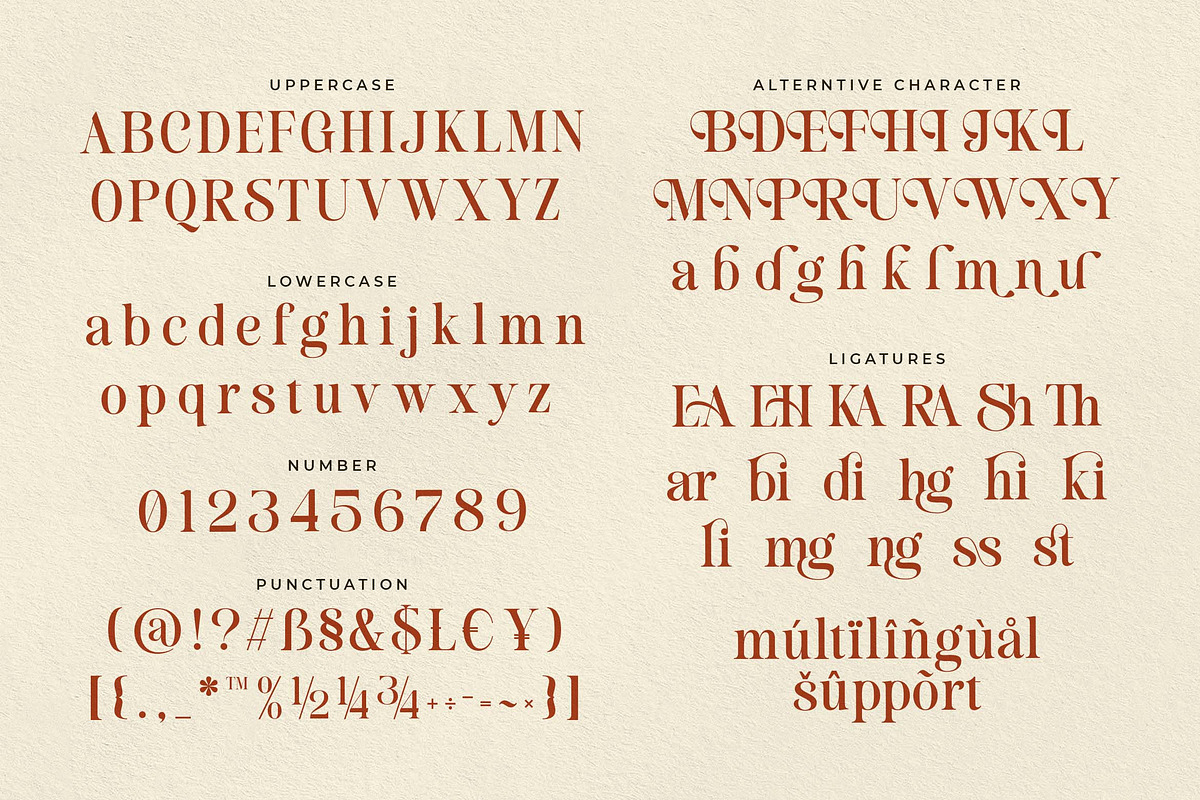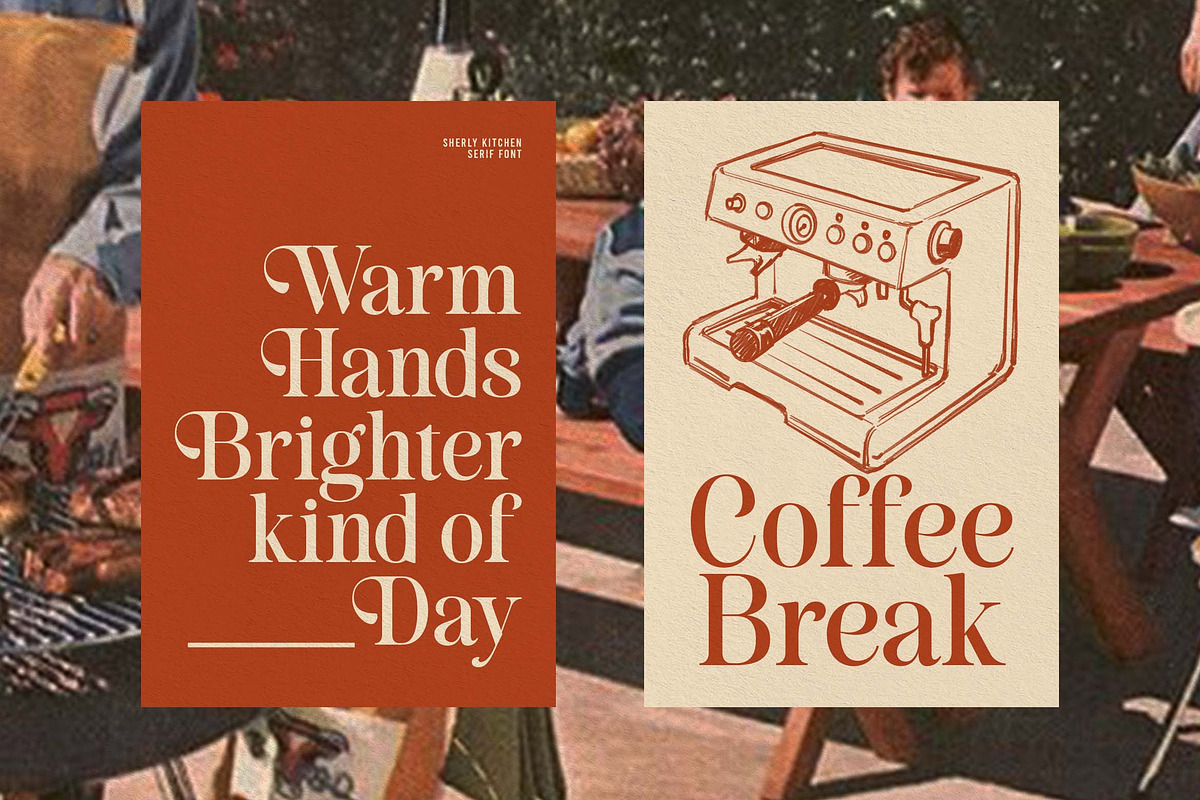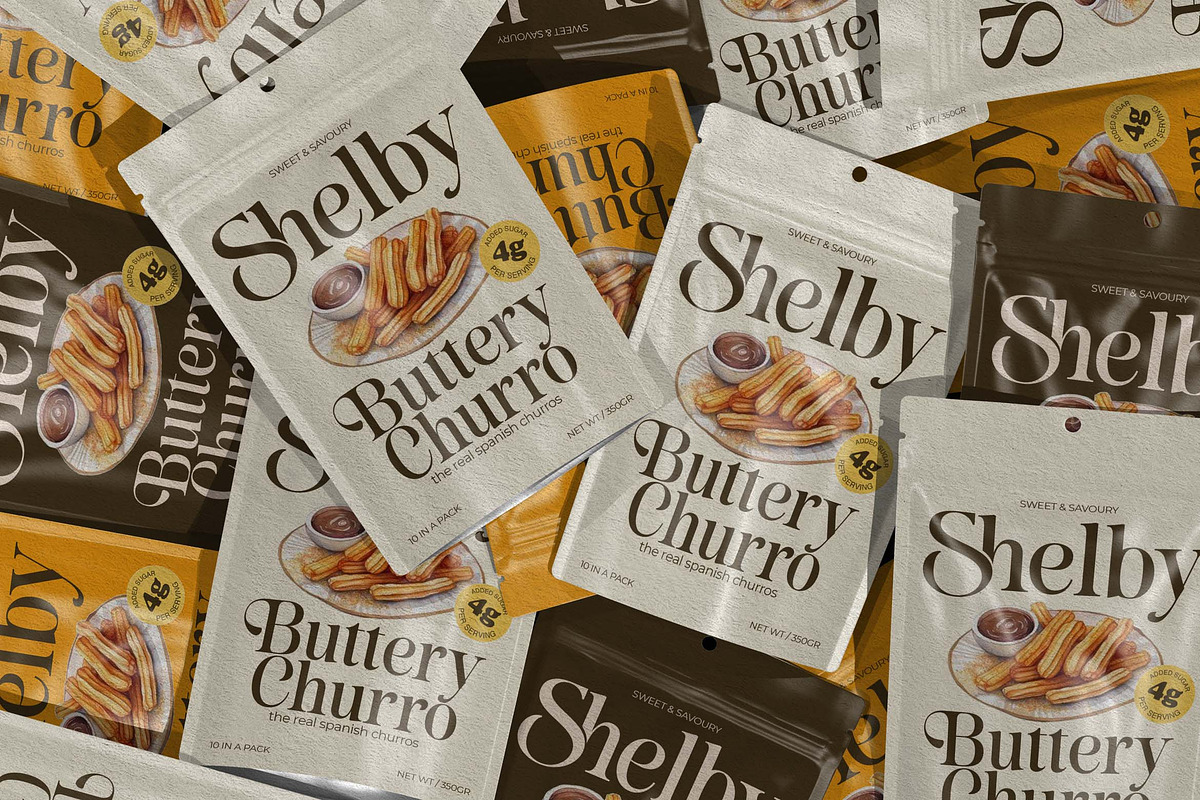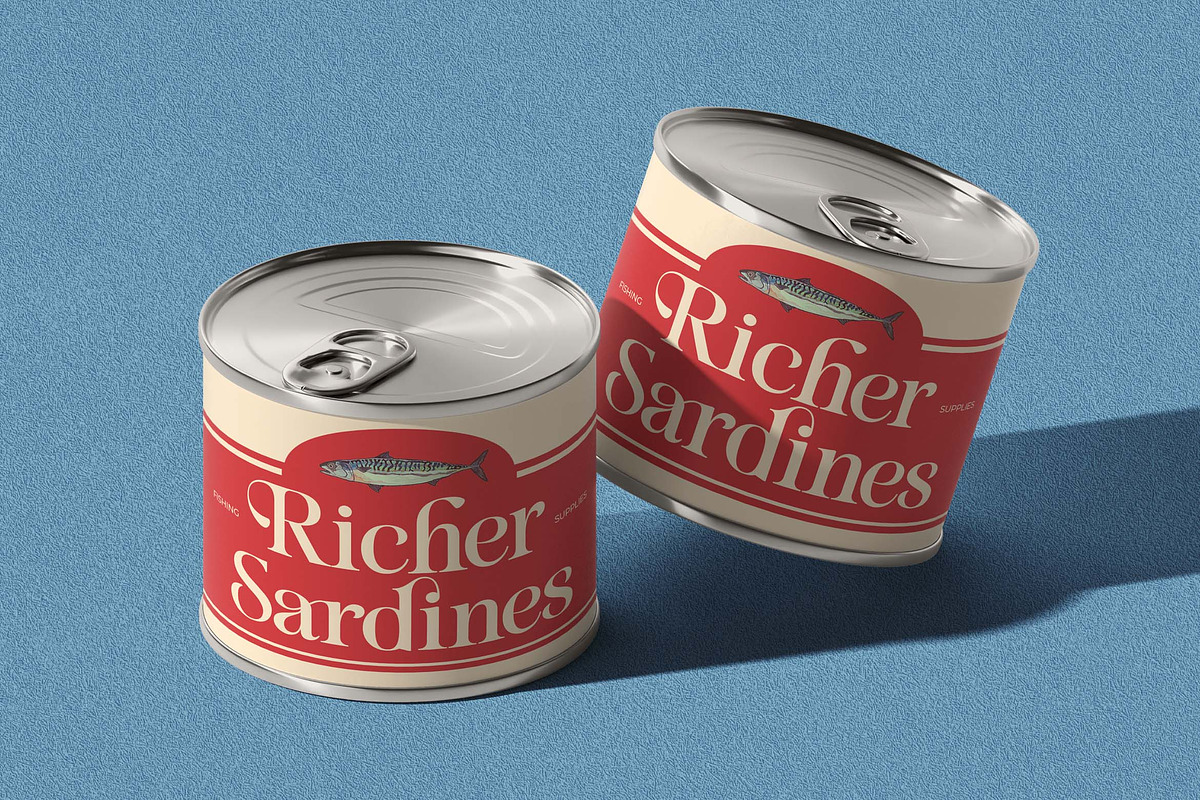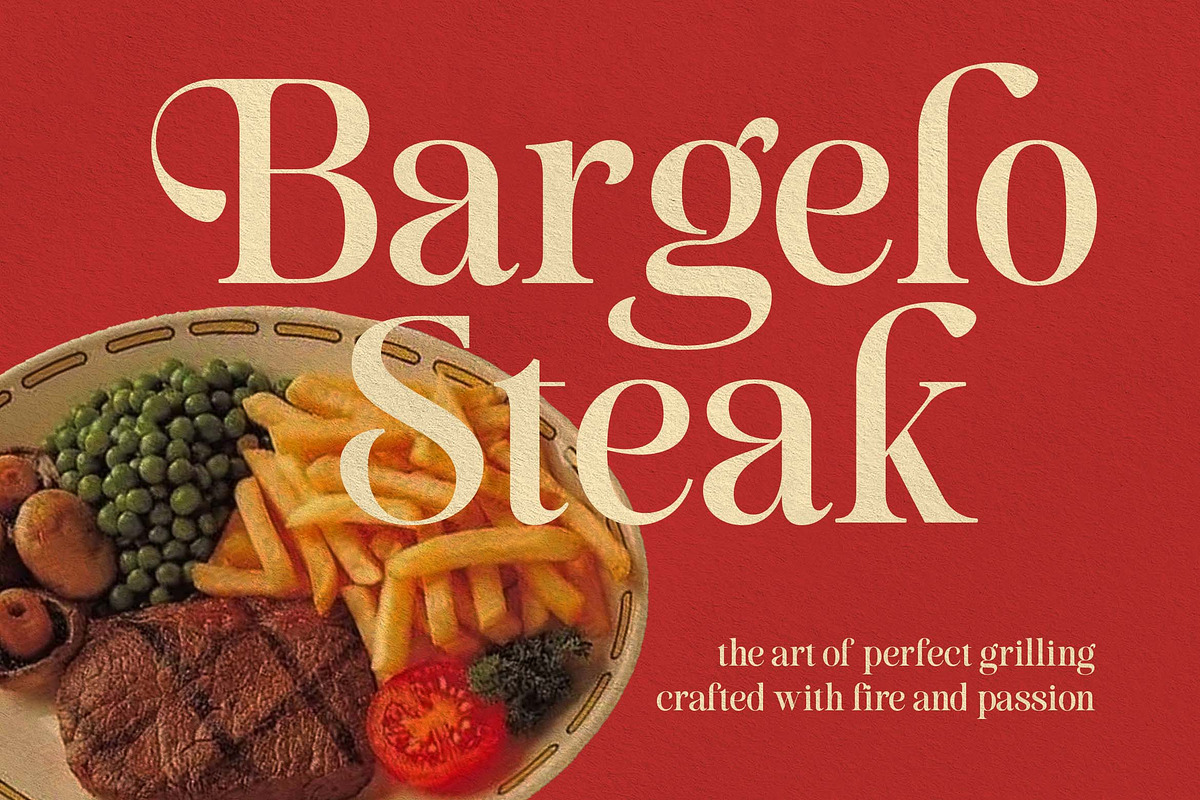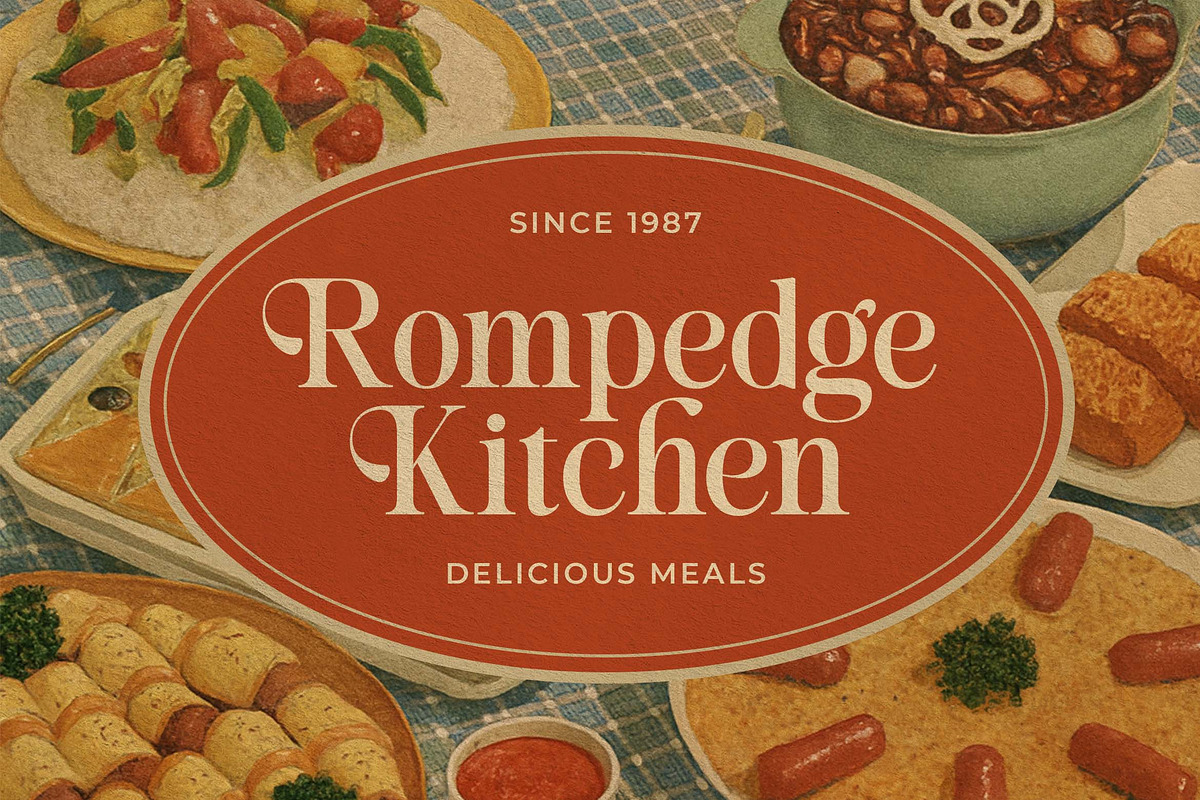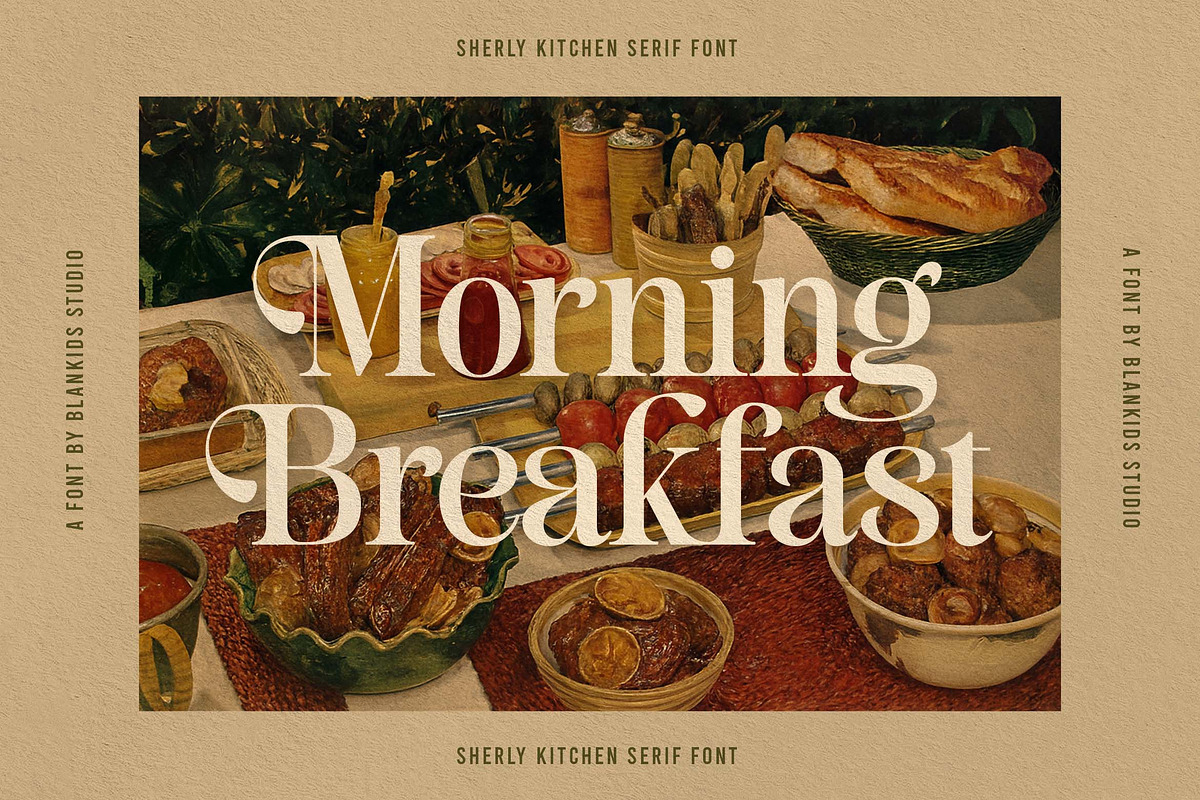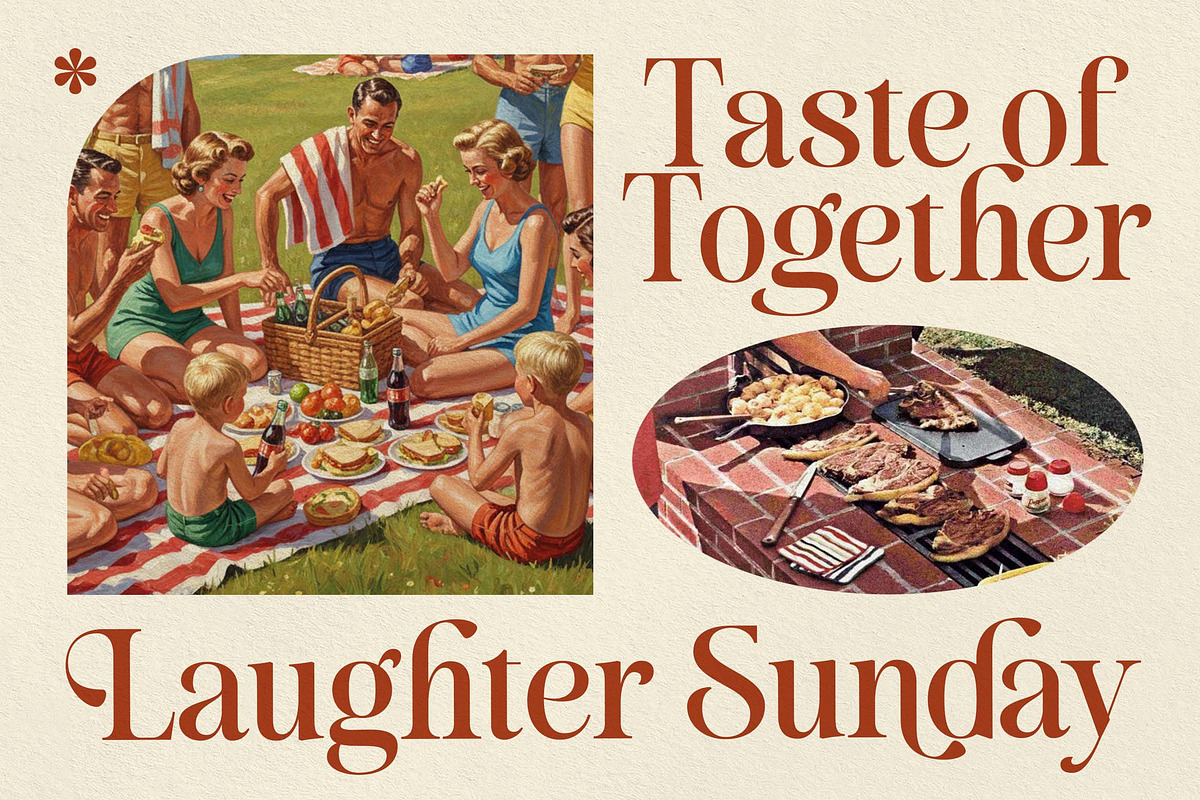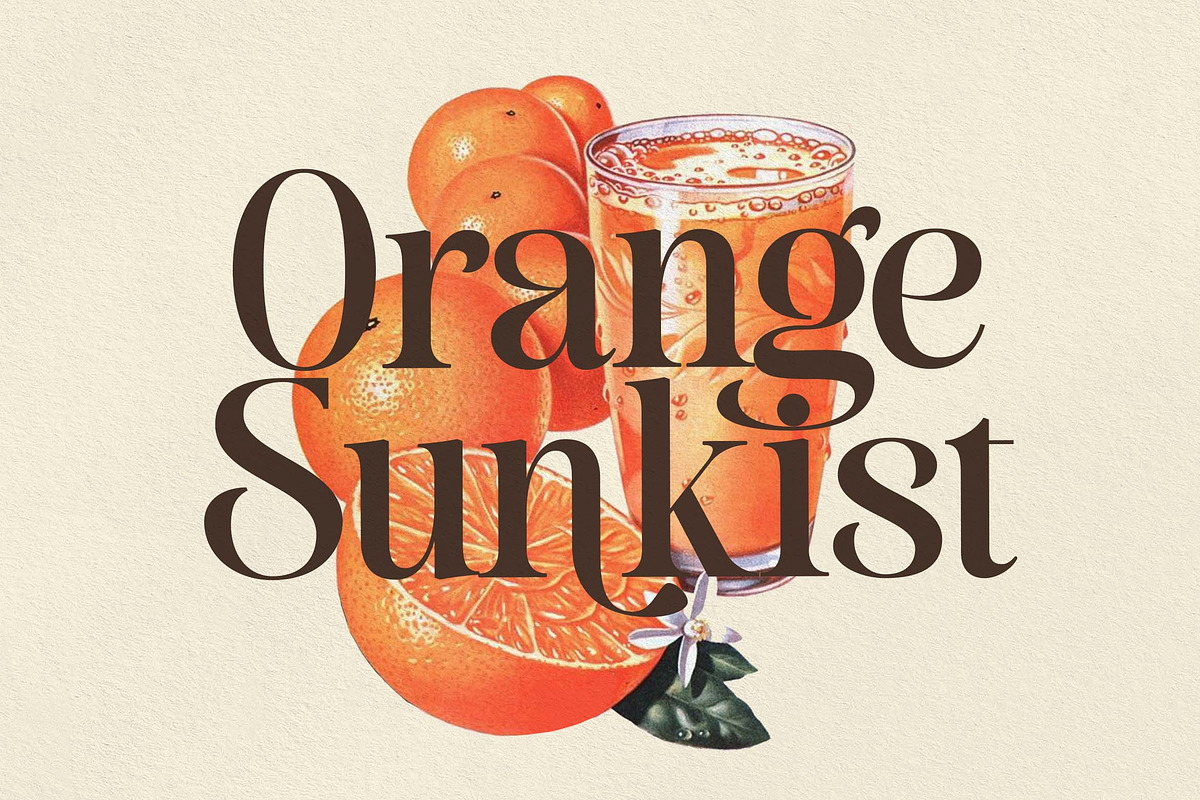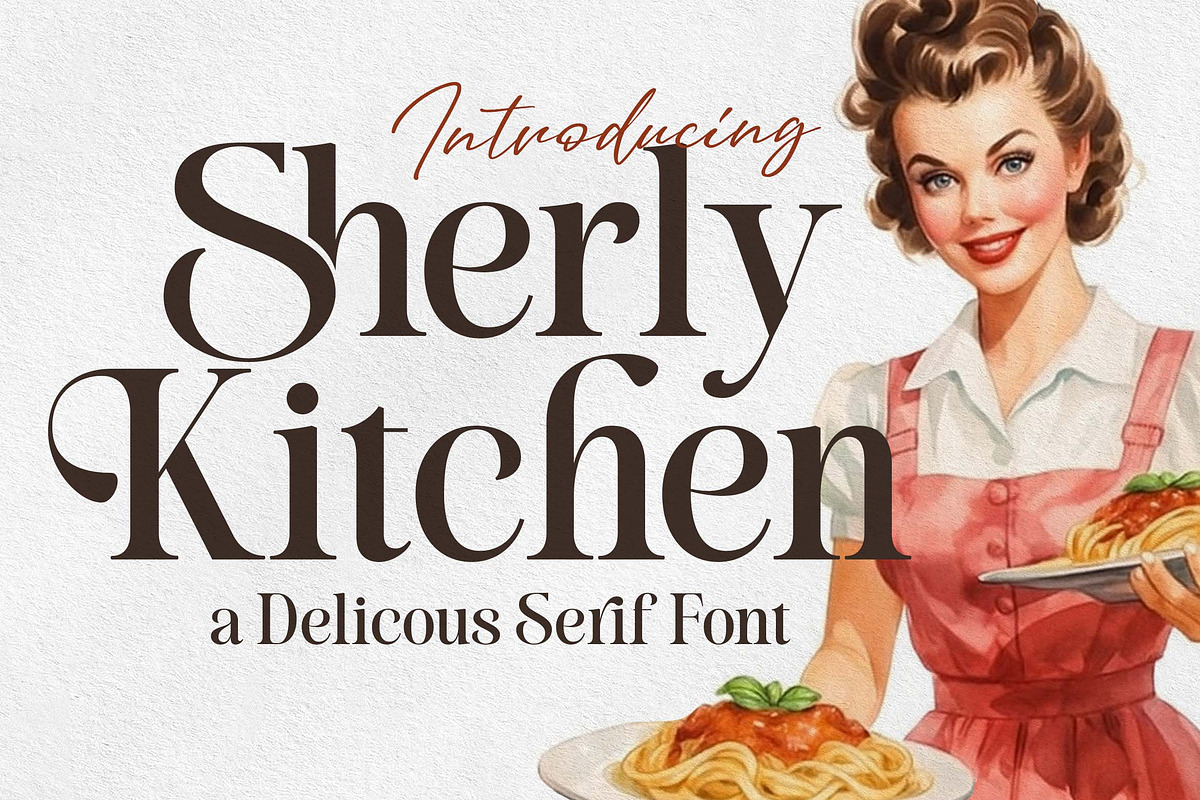
Sherly Kitchen a Delicious Serif
Sherly Kitchen – A Delicious Serif Font
Introducing Sherly Kitchen, a charming serif font that blends vintage warmth with modern elegance. Inspired by retro food packaging and classic diner menus, this typeface serves up a delightful taste of nostalgia perfect for brands that want to feel both timeless and tasteful.
With its soft curves, high contrast strokes, and elegant letterforms, Sherly Kitchen adds a flavorful personality to any design. Whether you’re crafting a bakery logo, restaurant branding, recipe book, or packaging design, this font brings a homemade touch that feels cozy, inviting, and full of character.
- Perfect for Logos, Posters, Packaging, Menus, and Branding Projects.
Bring your creative recipe to life — because great design, just like great food, starts with the right ingredients.